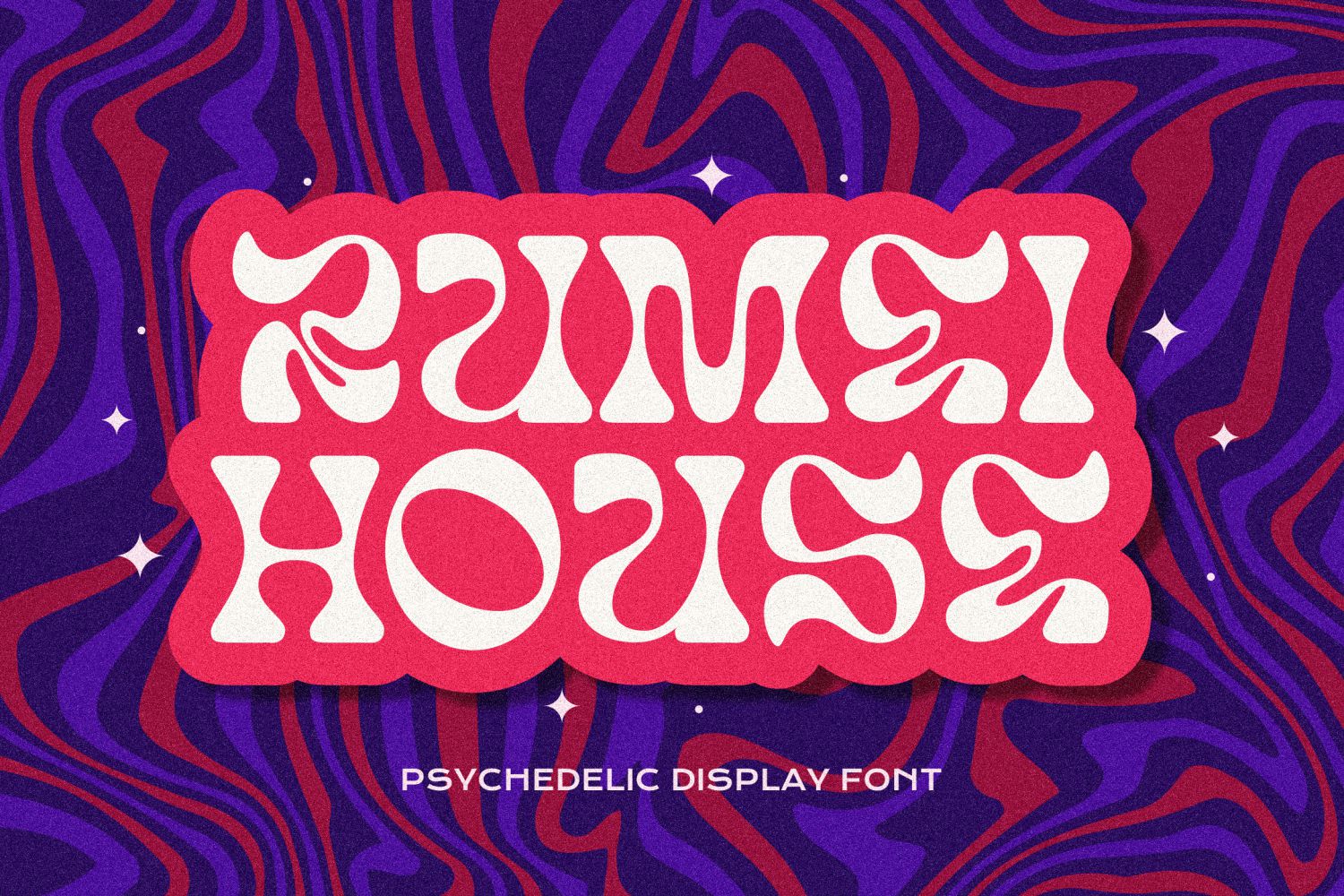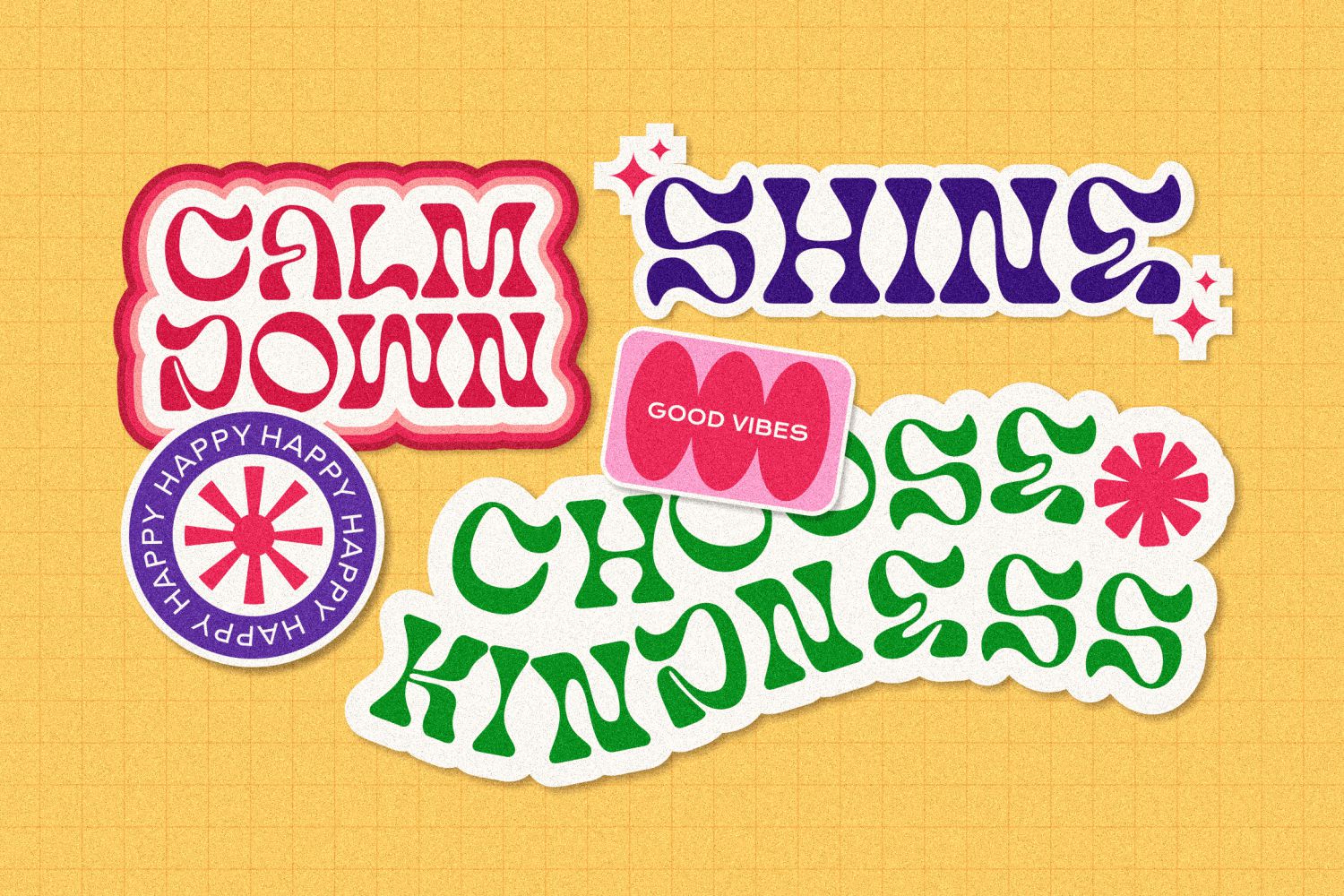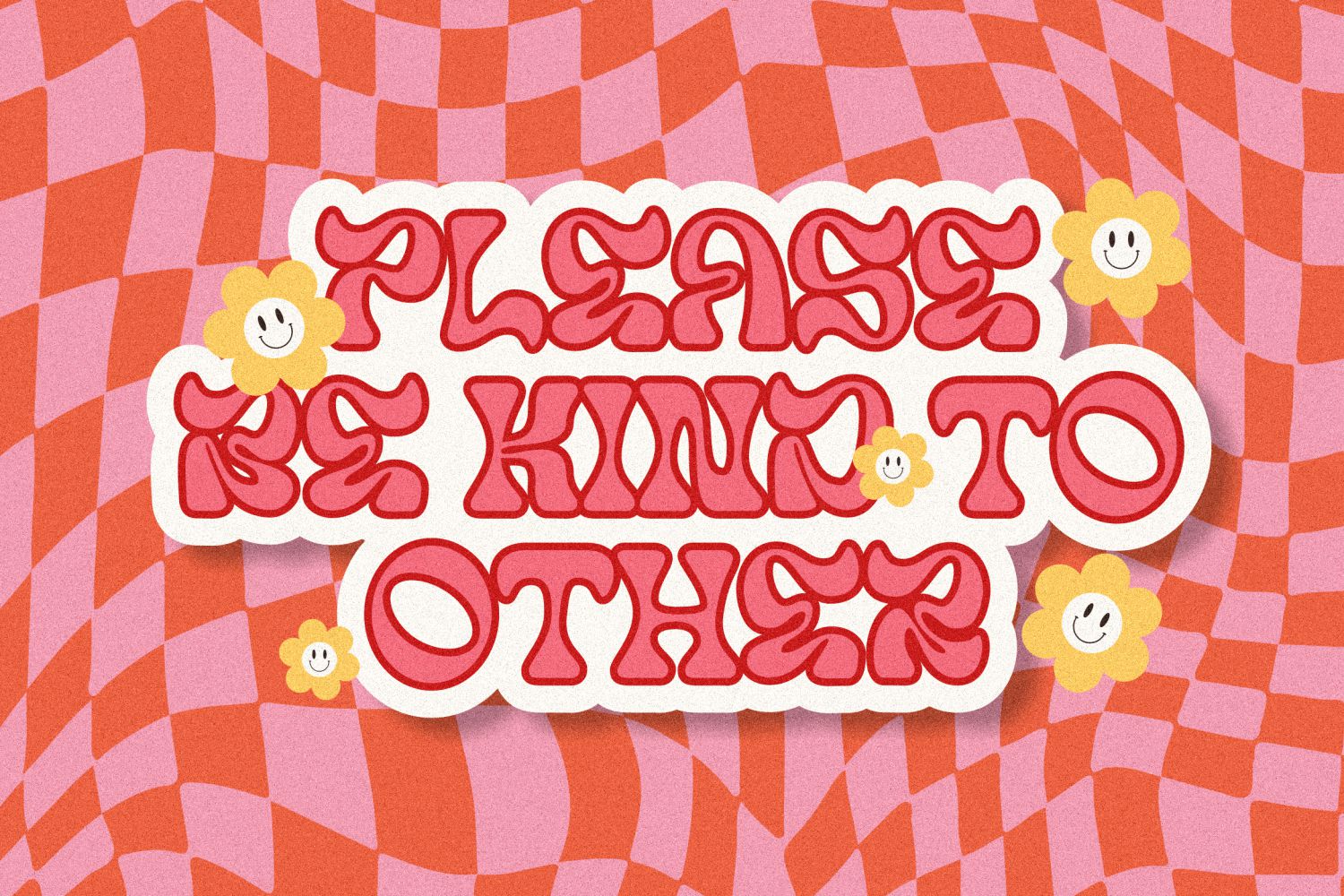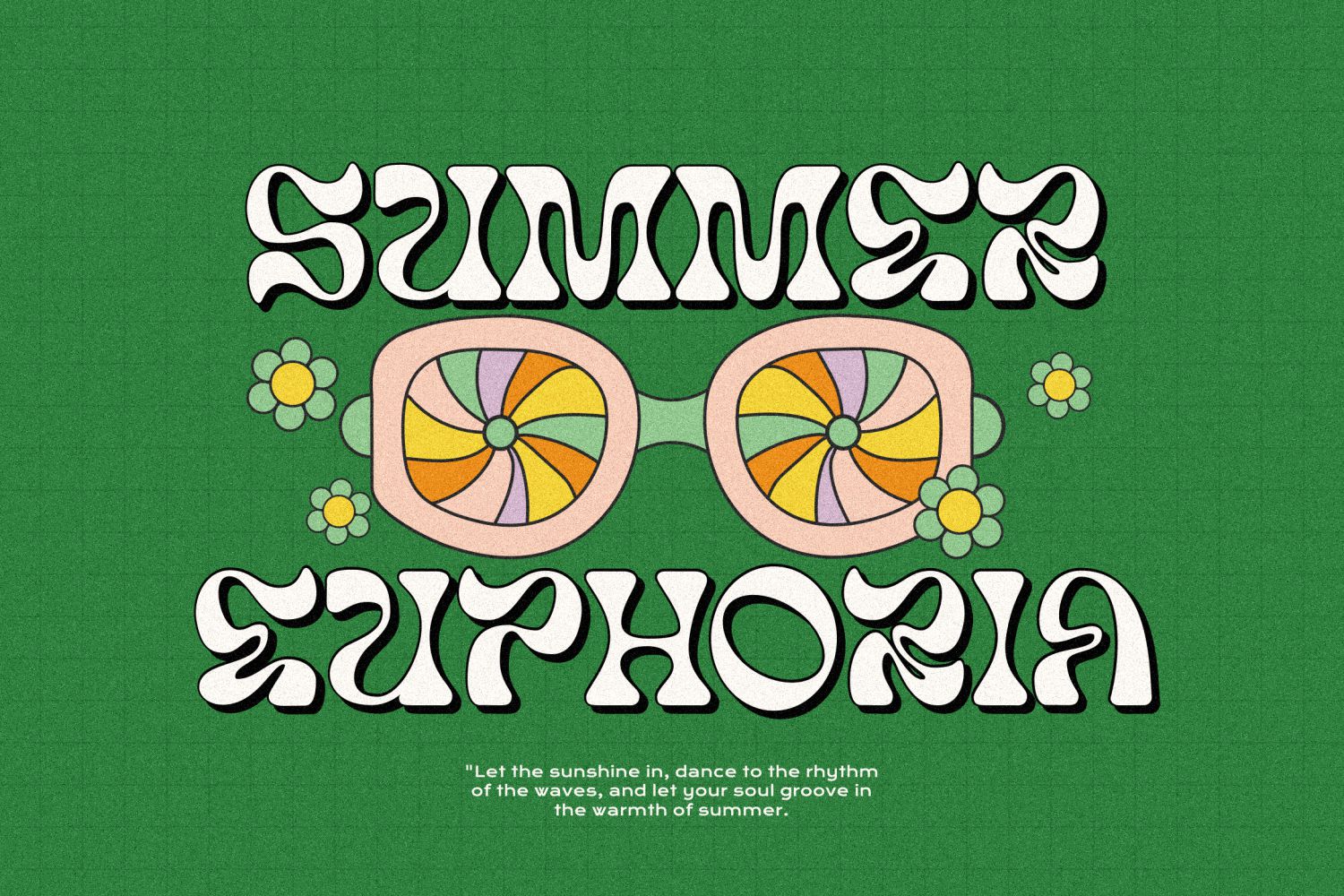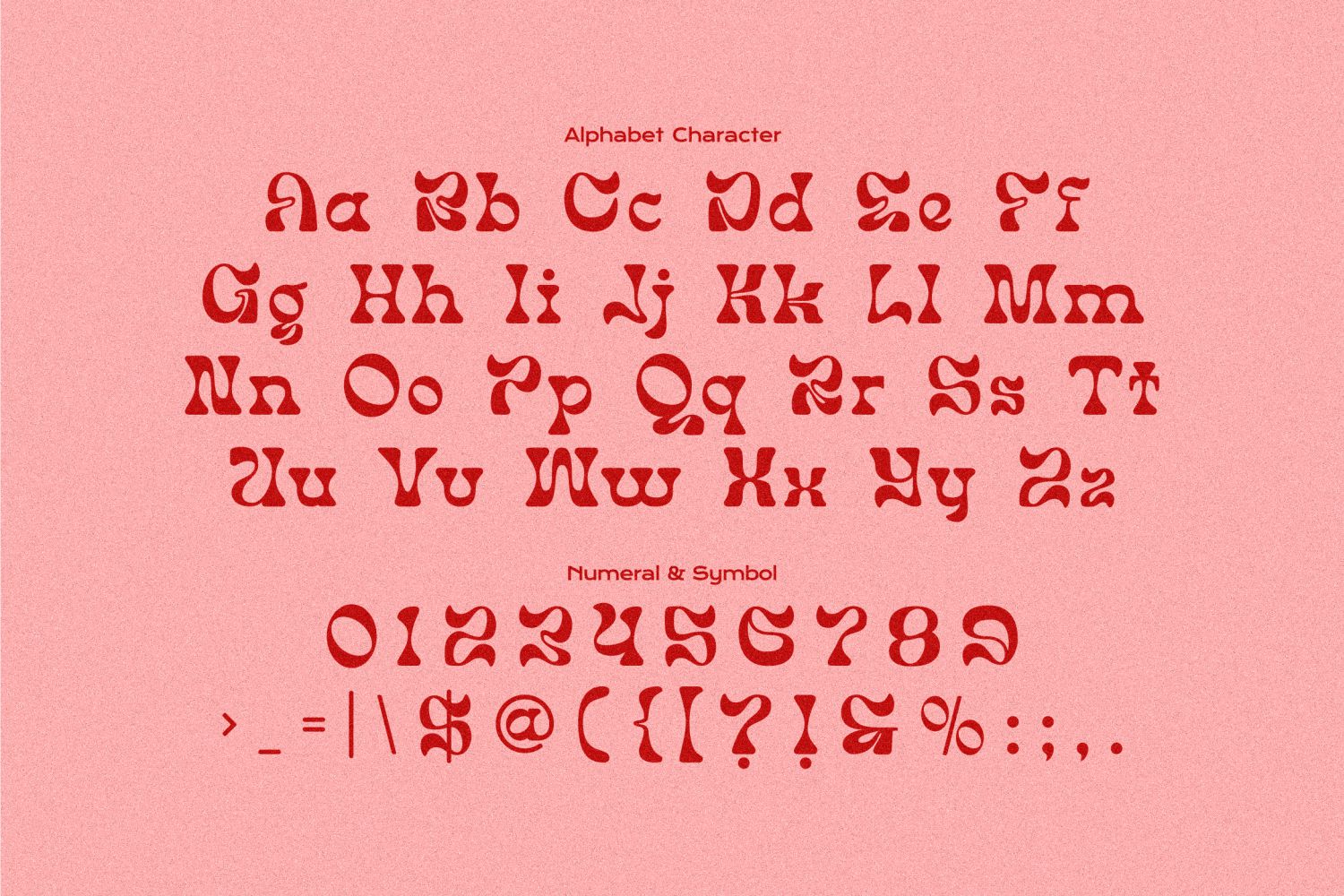
Rumei House is a bold psychedelic display font that bursts with groovy 70s energy and retro charm. Each letterform flows with organic curves and playful swirls, capturing the free-spirited essence of vintage music posters, hippie culture, and vibrant summer festivals. Its unique shapes make it perfect for eye-catching headlines, colorful branding, and statement designs that demand attention.
Whether you’re creating retro-inspired merchandise, whimsical social media graphics, or funky packaging designs, Rumei House delivers a punch of nostalgic personality. It’s an ideal choice for projects that embrace positivity, creativity, and a touch of nostalgia, turning any text into a work of art filled with rhythm and joy.